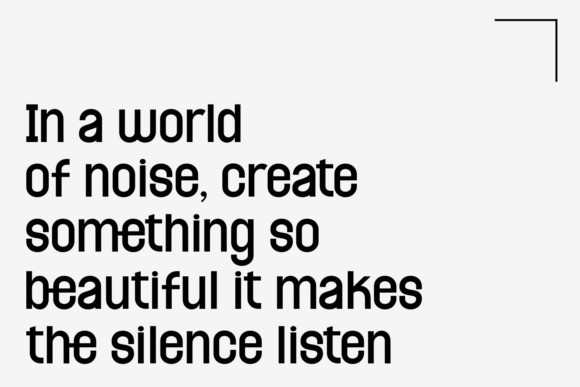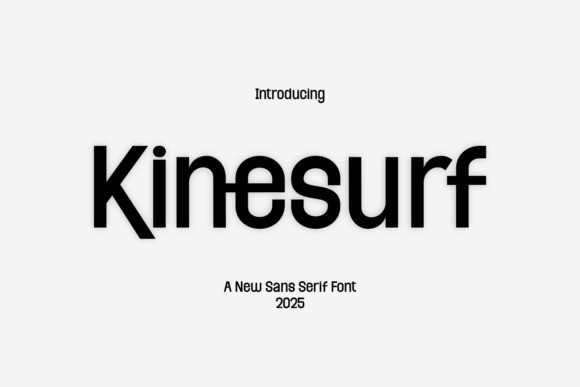
Kinesurf Font
Kinesurf Font a new sans serif font from the year 2025. The minimalist and high-contrast aesthetic perfectly highlights the font’s modern, geometric, and professional character, making it suitable for tech branding, headlines, and contemporary design.